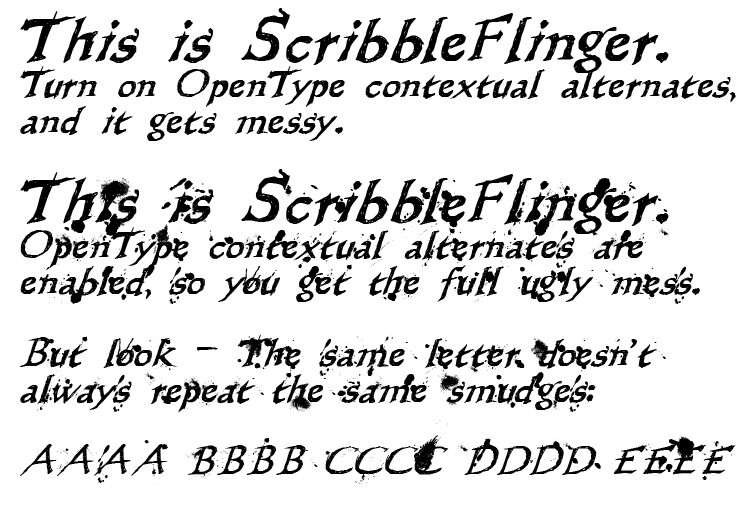
WL Scribble Flinger by Samuel Goldstein of Writ Large Fonts is a free brush script with loose, sharply tapered strokes. Its uneven letter shapes lean and sway, giving the line a quick, improvised pace. Small flecks interrupt the dark strokes like dry-brush skips.
Packaging gives this lettering a convincing home on hot sauce bottles and other small-batch food products. The rough marks suggest something made quickly by hand, a useful edge for independent brands with an unruly streak. Gig posters, album covers, and music merchandise form a second natural group, since the scattered flecks can merge with screen-printed textures and bold, energetic illustration.
The font includes the OpenType Contextual Alternates feature.